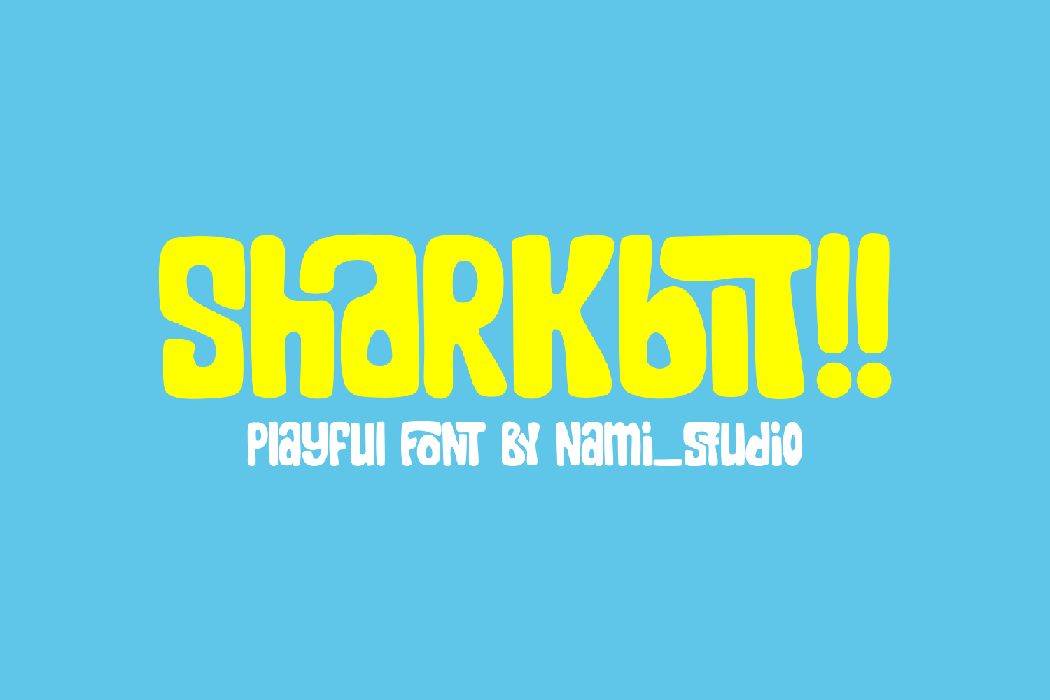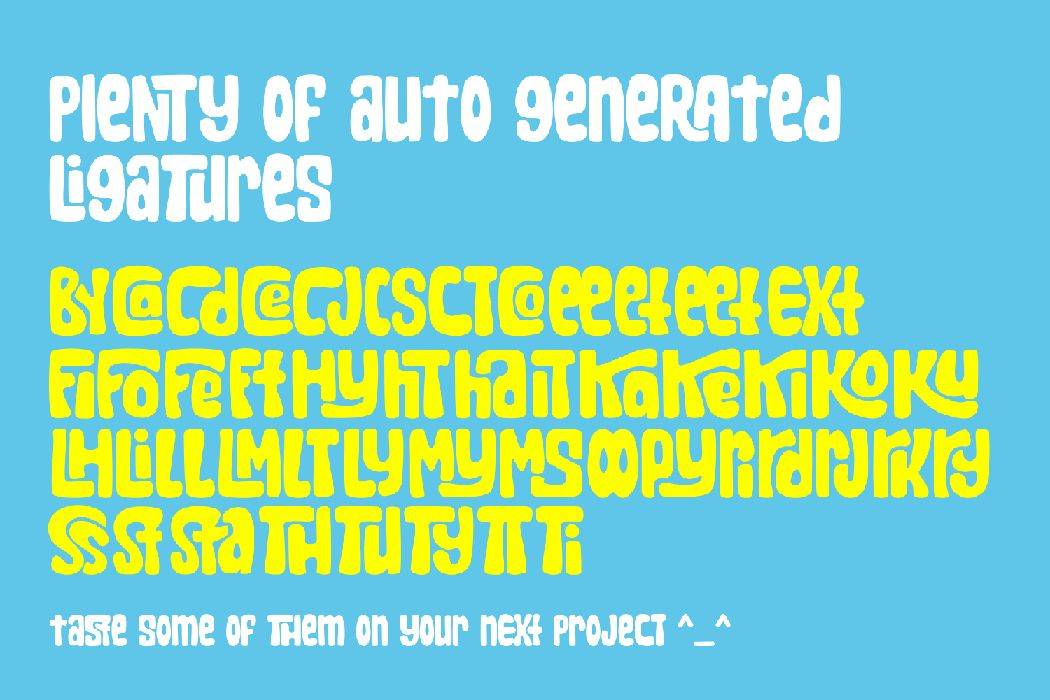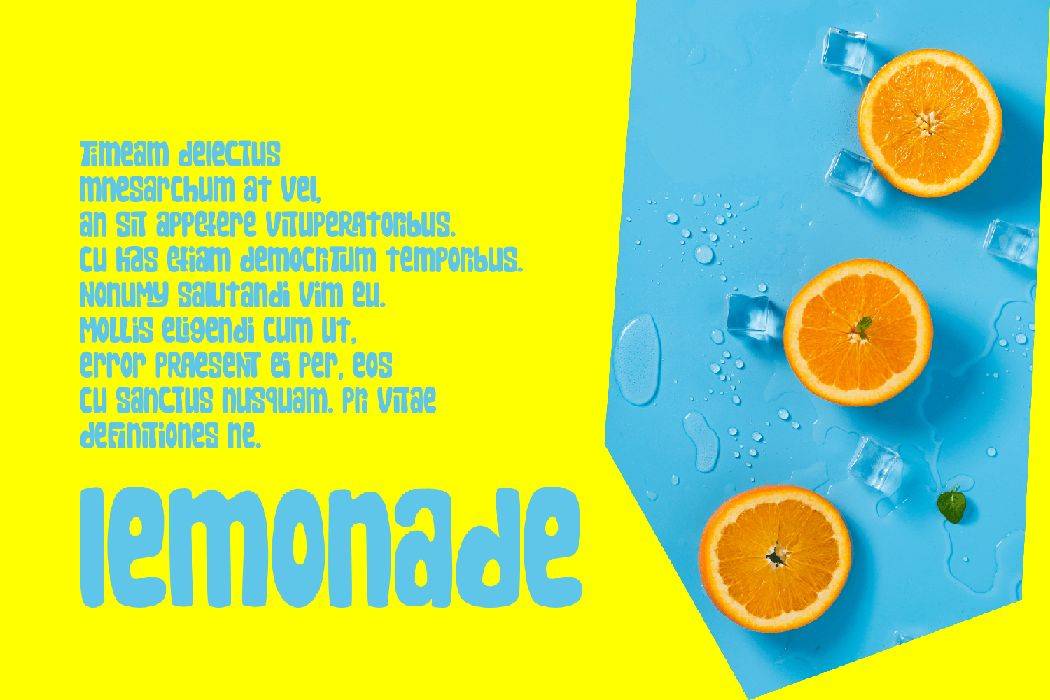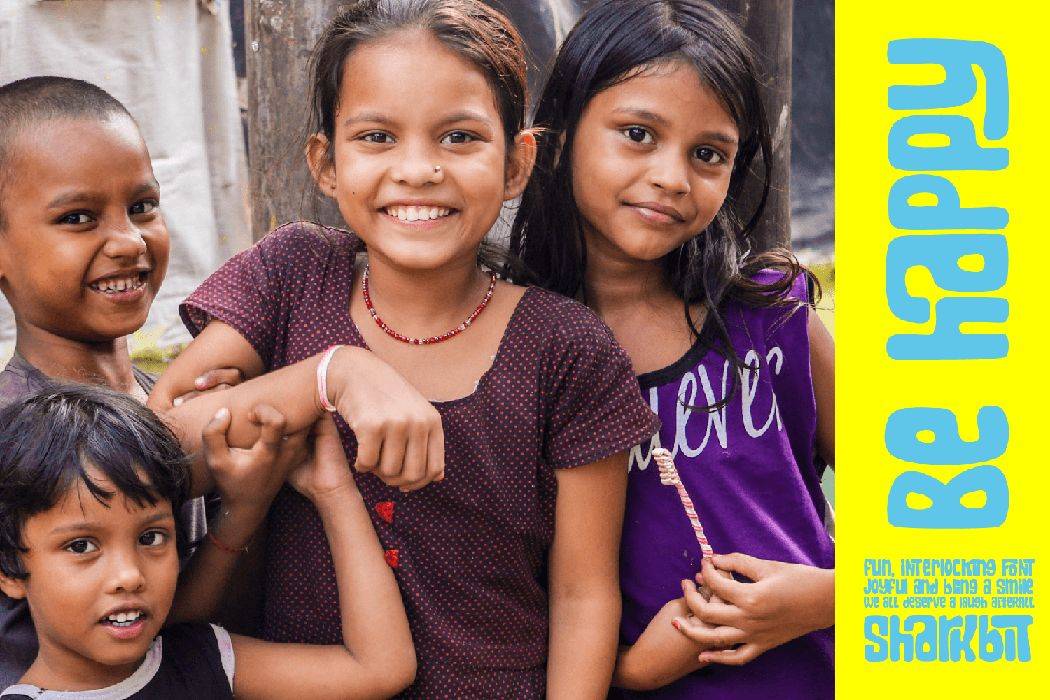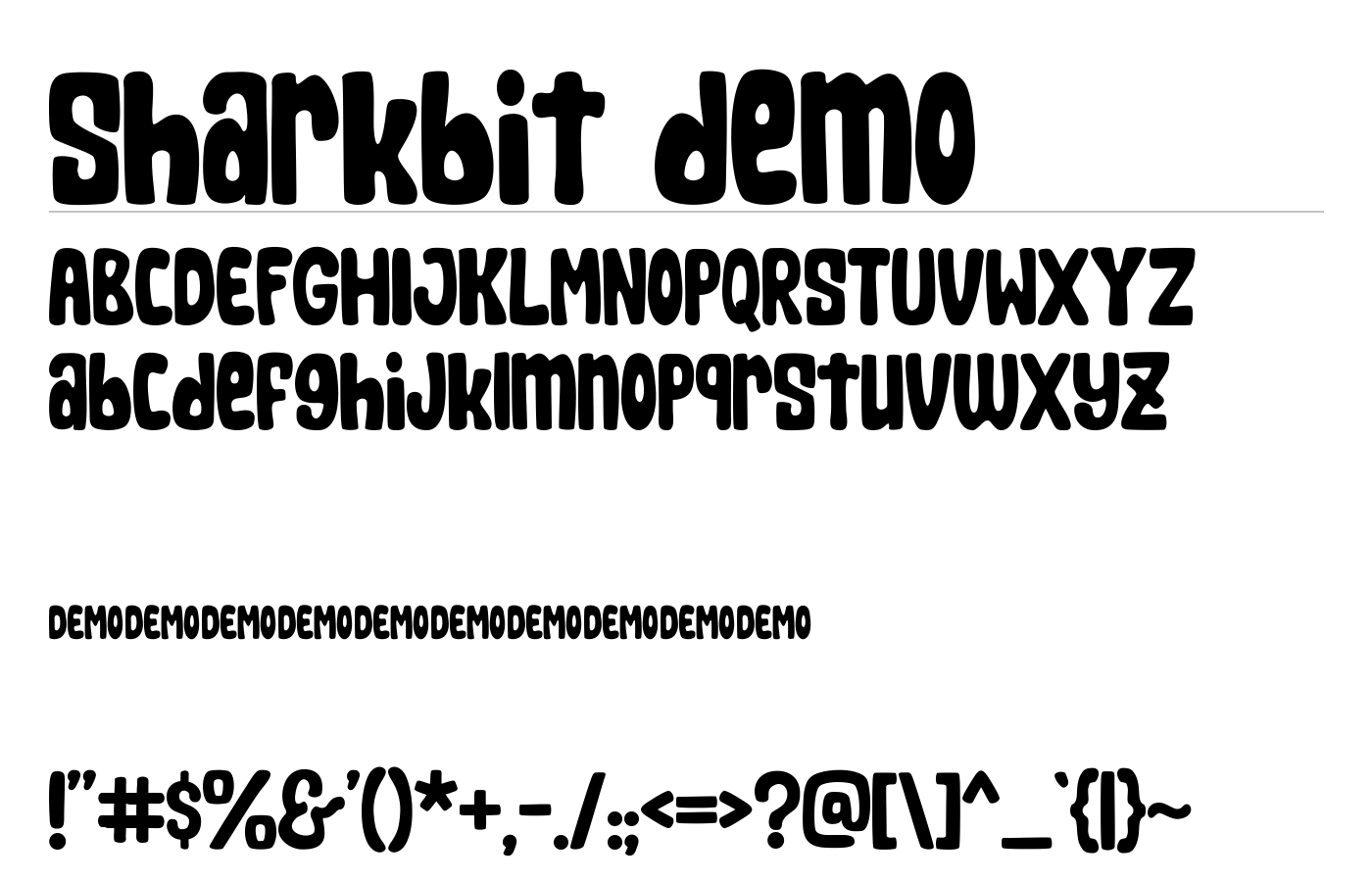
Sharkbit is a playful and bold sans serif font with a rounded, slightly irregular form that gives it a friendly and approachable feel. Its chunky weight and generous x-height make it highly legible for headlines, logos, and fun designs, while its soft curves and quirky details add a touch of personality perfect for creative and casual branding. This font works well in projects aimed at a youthful or informal audience, bringing a sense of warmth and fun to digital and print use.
Sharkbit Font
About Sharkbit Font